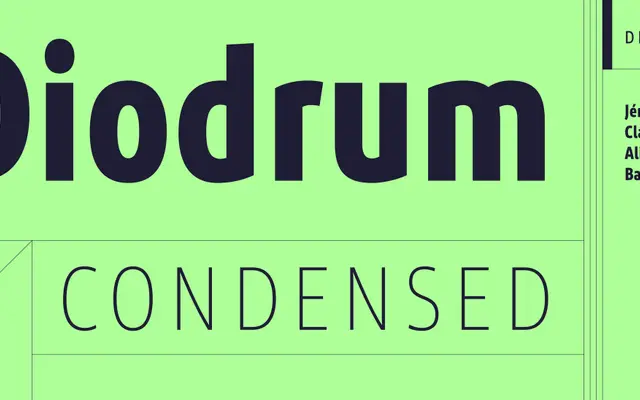
Diodrum Condensed
A condensed geometric sans with six weights and matching italics, serving as the narrow companion to ITF's Diodrum family.
Twelve styles span six weights from Extralight to Bold, each with a matching italic, giving the family solid coverage for space-constrained layouts and editorial work. The condensed proportions make it well suited to headlines, navigation and narrow columns where a geometric sans is needed without sacrificing legibility. It pairs directly with the standard-width Diodrum for typographic systems requiring both registers.
Diodrum Condensed follows the geometric sans-serif model, with clean, rational letterforms typical of the genre, presented here in a condensed width across multiple weights.